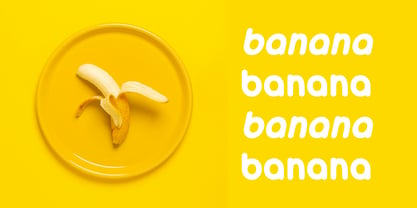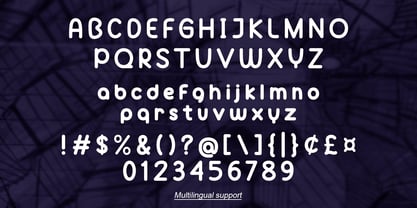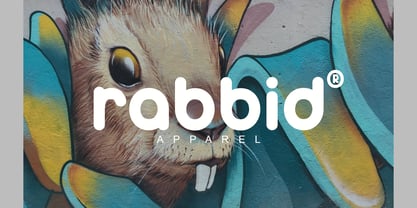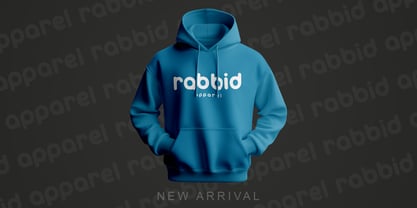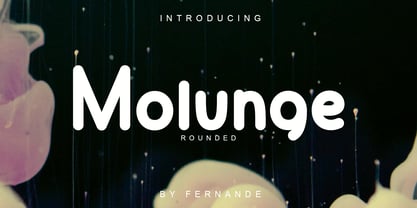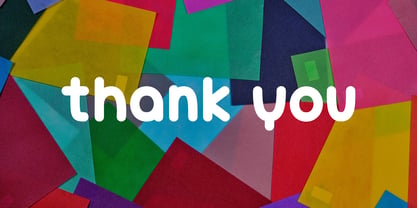
Molunge Rounded
por Fernande
La familia tipográfica Molunge Rounded fue diseñada por Angga Fernandi y publicada por Fernande. Molunge Rounded contiene 2 estilos y opciones de paquete familiar. Más información sobre esta familia
Introducing Molunge Rounded, a modern rounded sans-serif font with a soft, friendly character and smooth curves. Designed to feel clean yet playful, Molunge delivers excellent readability while adding a warm, contemporary touch. It’s a perfect choice for branding, logos, headlines, posters, social media graphics, and creative projects that need a simple but distinctive voice.
Diseñadores: Angga Fernandi
Fundición: Fernande